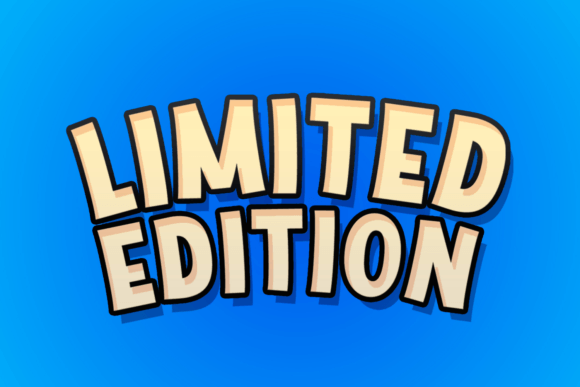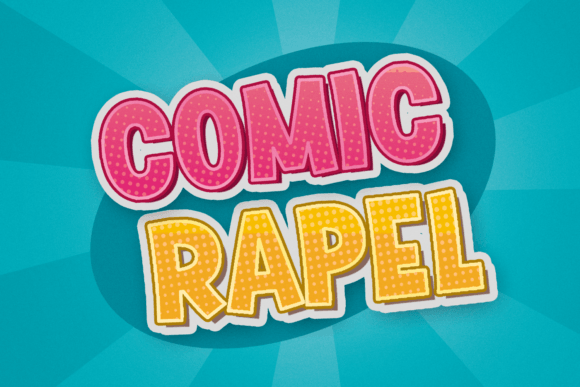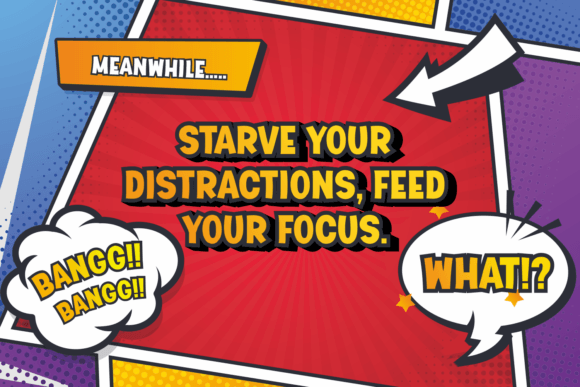
Introduction to Power Bundel Font
Power Bundel is a bold and energetic cartoon font featuring dynamic letterforms with thunderstrike elements incorporated into the design.
The font is playful and electrifying, making it ideal for action-packed and superhero-themed designs Power Bundel is great for comic and action-themed projects, its bold design also makes it suitable for branding, packaging, and promotional materials that need to make a striking impact.